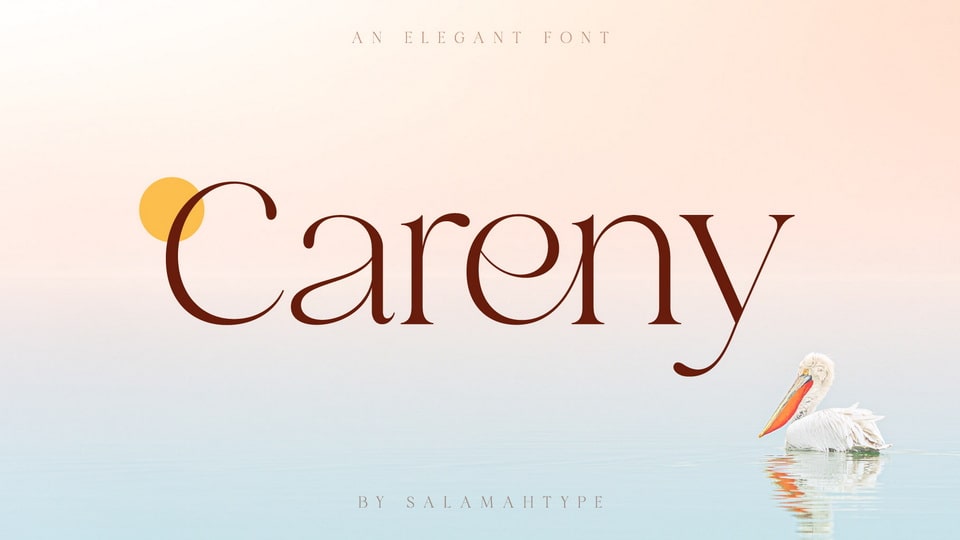
Download Careny font, an elegant and modern typeface. Its modern aesthetic lends a touch of sophistication to any project, from magazine layout to logo branding.